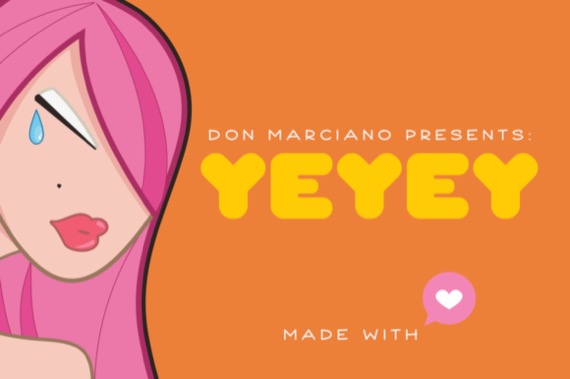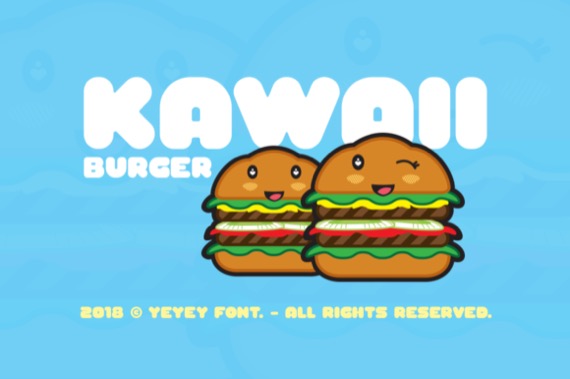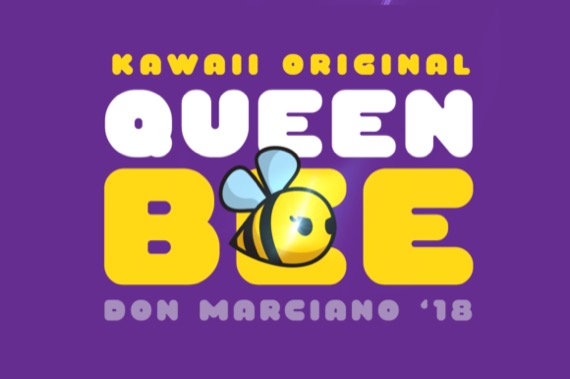
Yeyey is a cool and friendly Kawaii revival font that was published by DonMarciano. It was inspired by the chubbiness of iconic kawaii characters.
With its bold and curvy lines, it becomes a true kawaii loving typeface that knows the meaning of less is more.
Yeyey Display Font